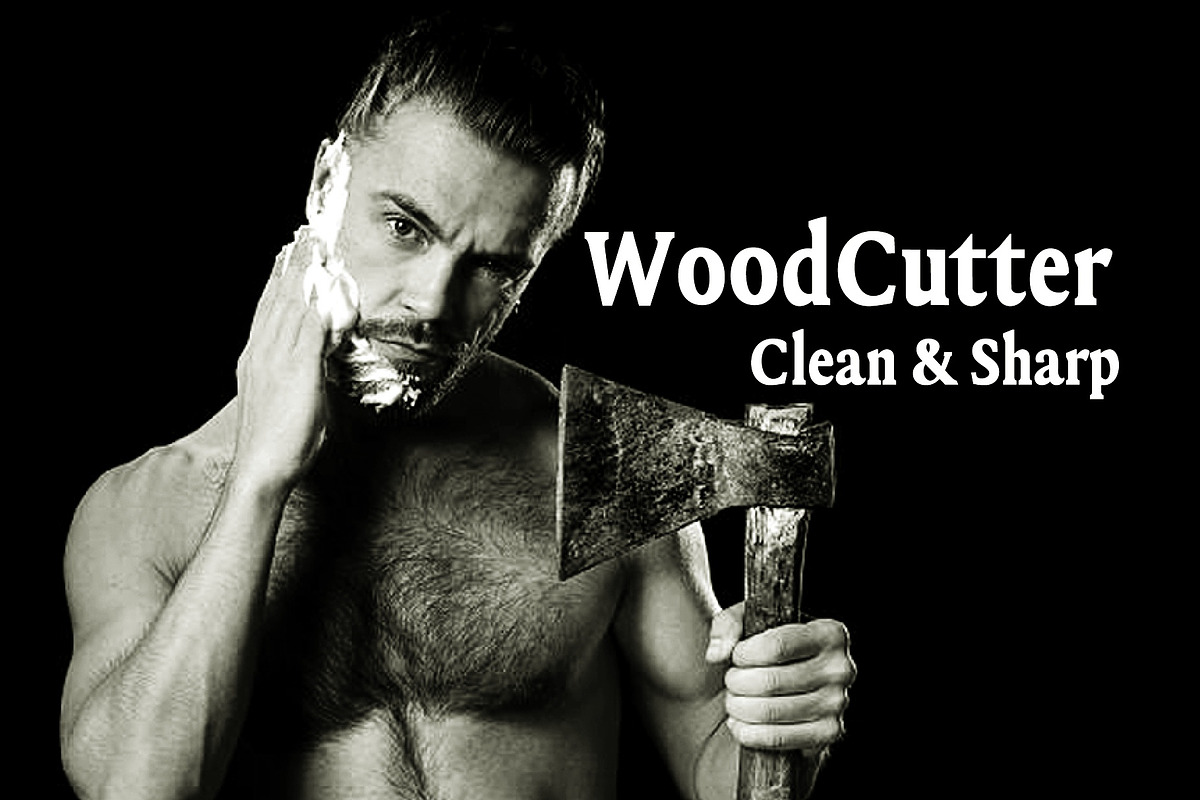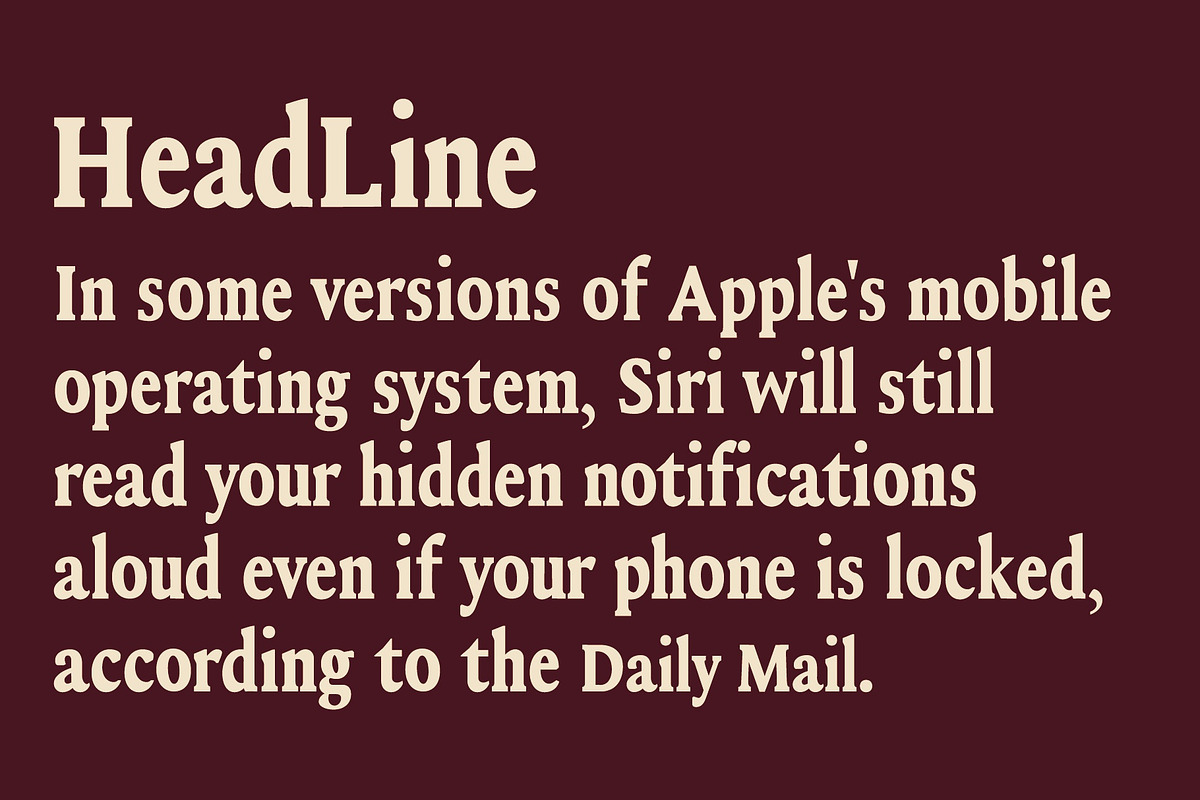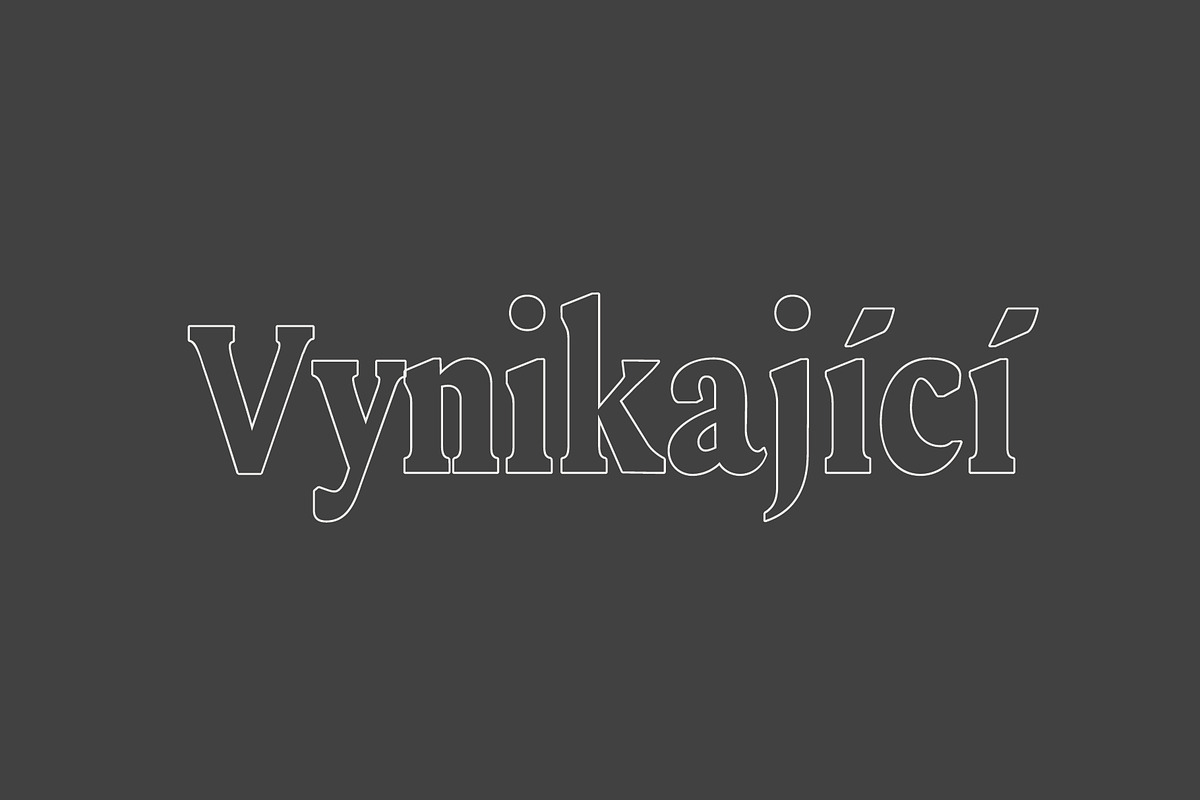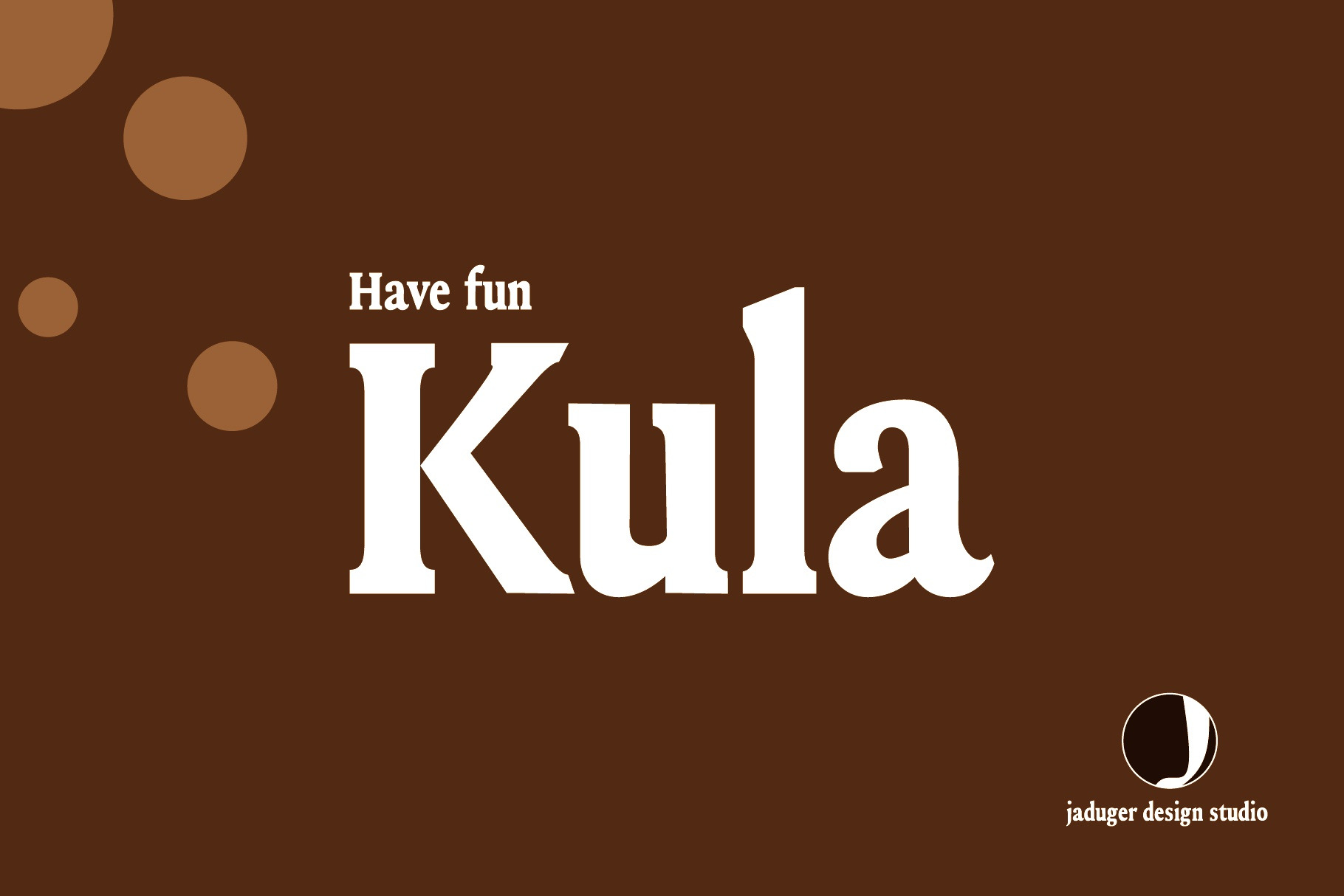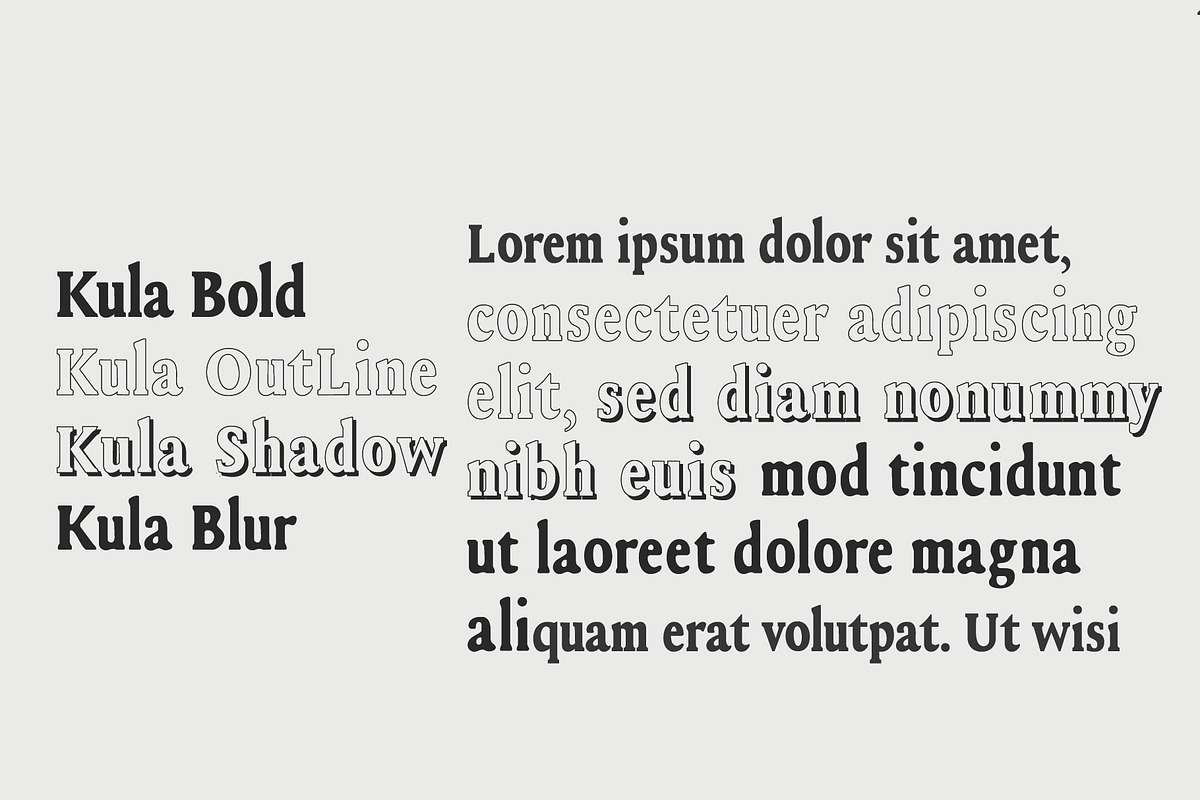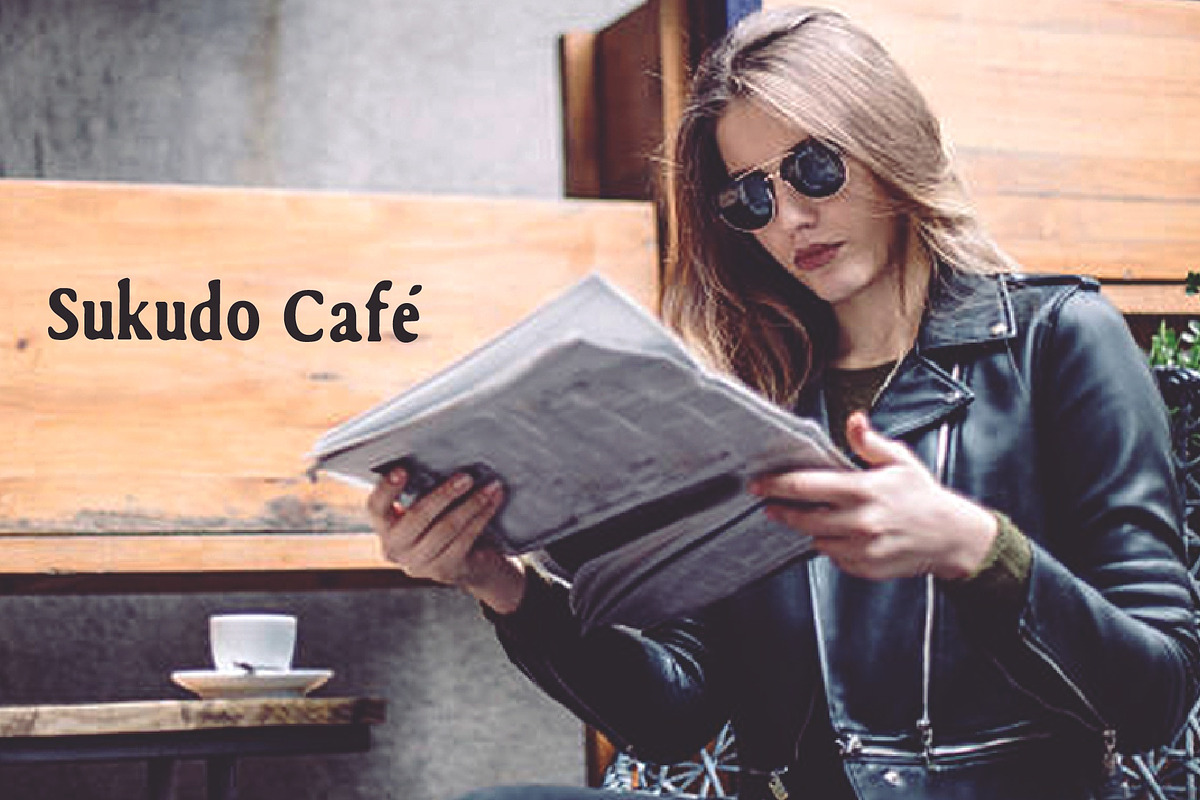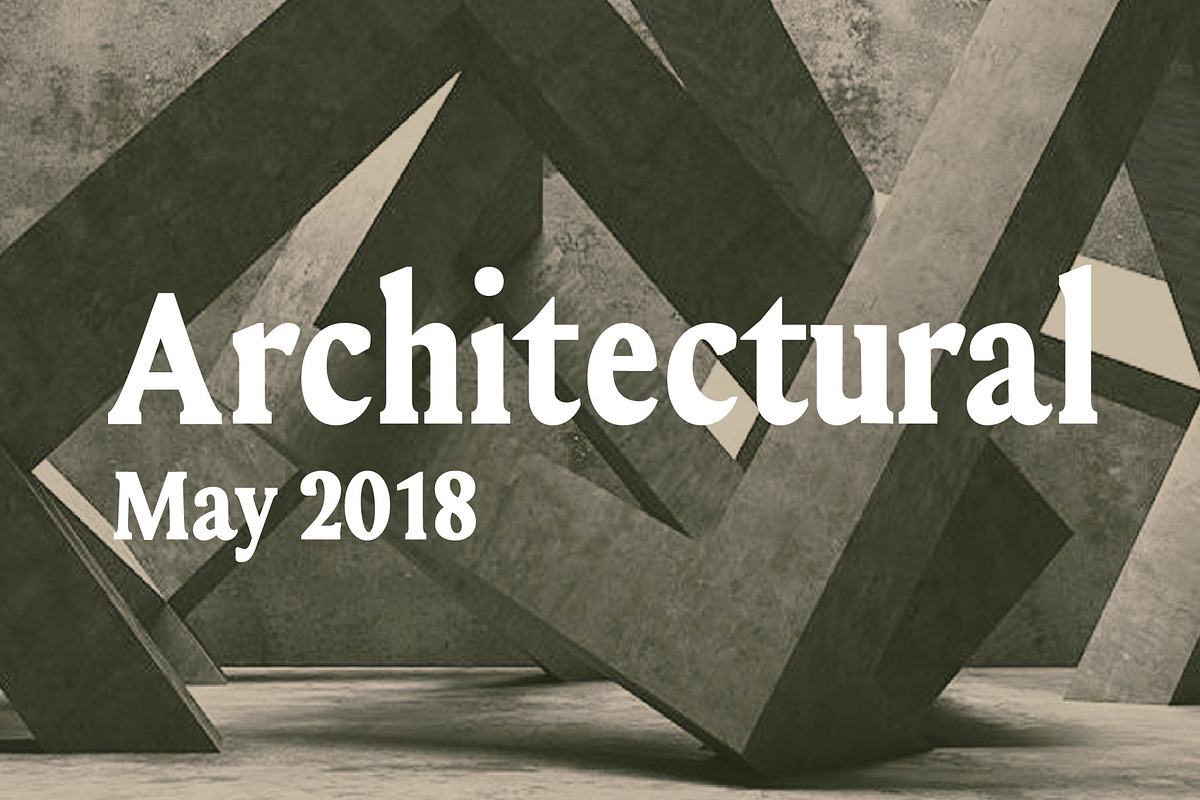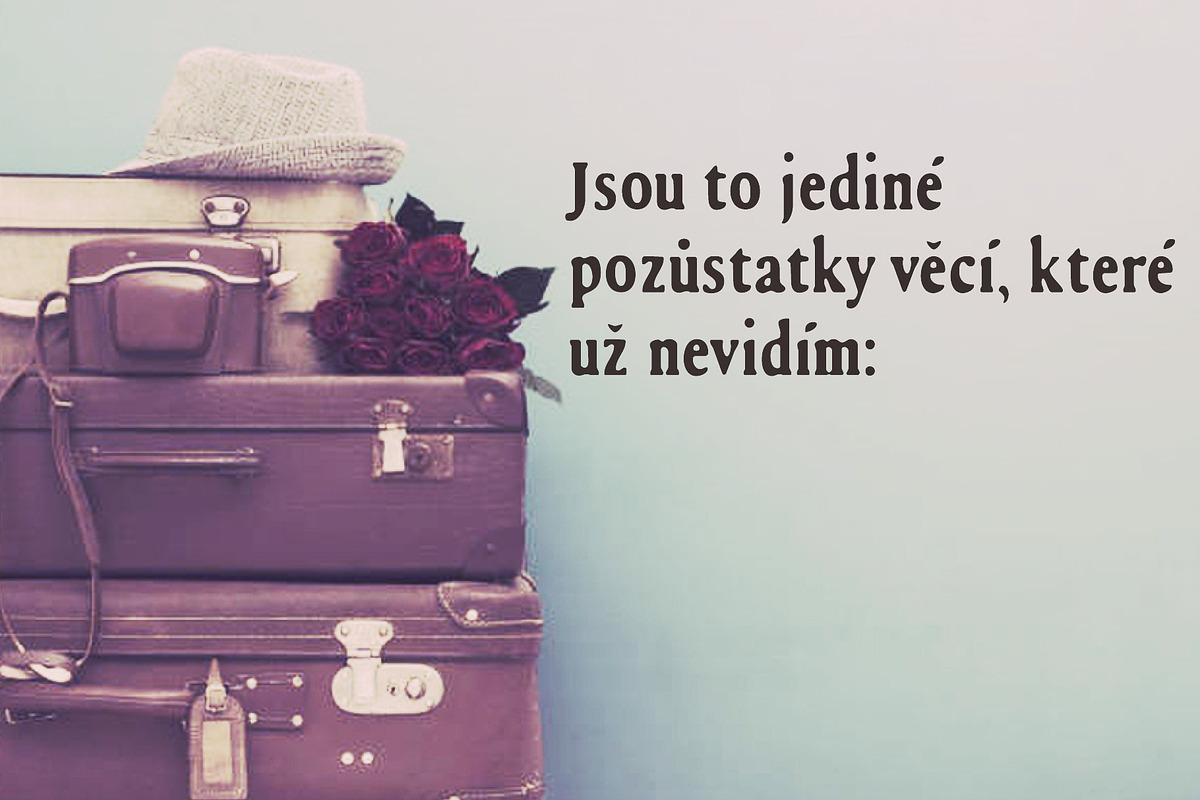
Kula Bold and Beautiful Font
i am really proud to introduce Kula, have fun font. This is bold with three more variations, outline, shadow and blur versions. These 4 fonts are very pleasing to use in your poster design, giving some headings to your text and many more options to play with these set of fonts.
Its unique curves with slab look is fantastic choice for your next project. this is crafted with care and I tried to make this some thing special for you.